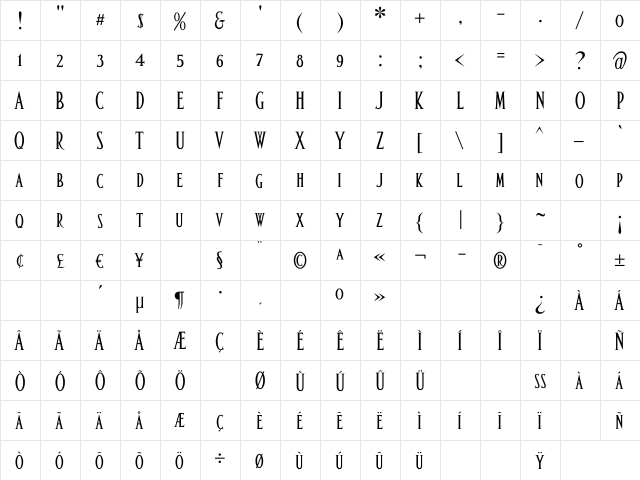
AltarSmall Caps Regular
Design Context for AltarSmall Caps Typeface
AltarSmall Caps offers clean, dependable letterforms without strong stylistic allegiance, making it a practical choice for designers who need flexibility.